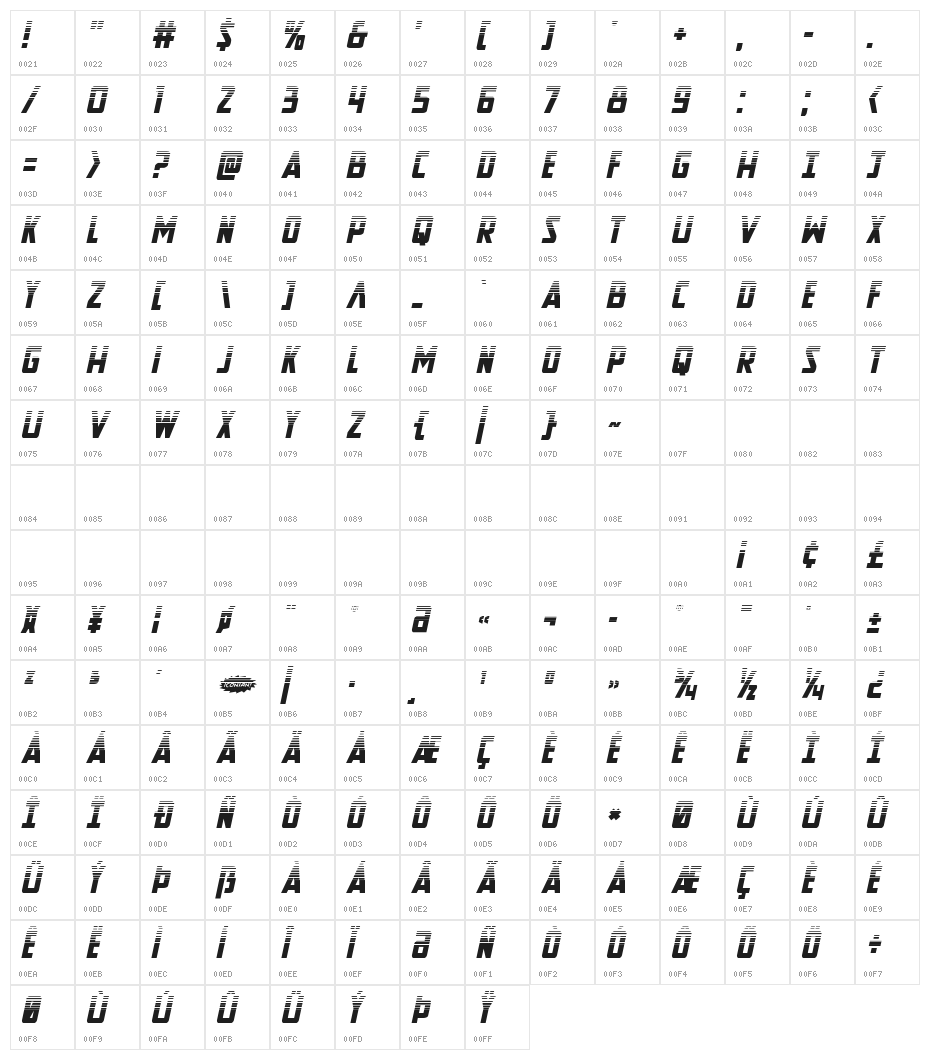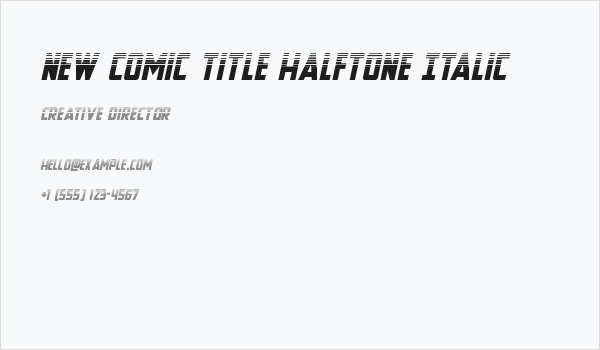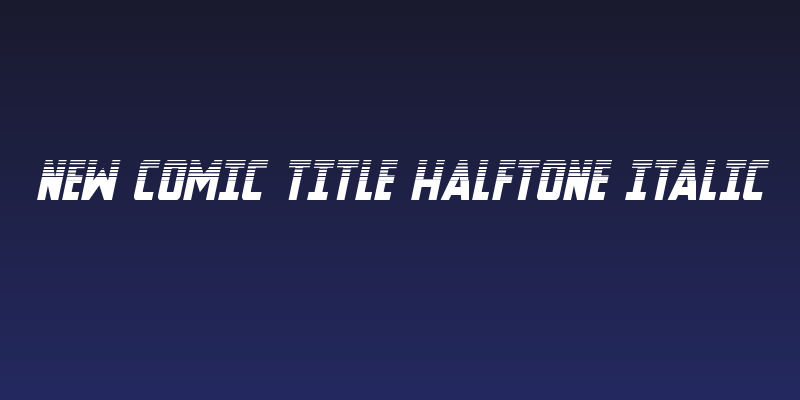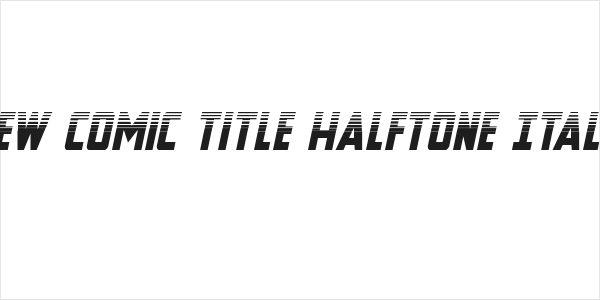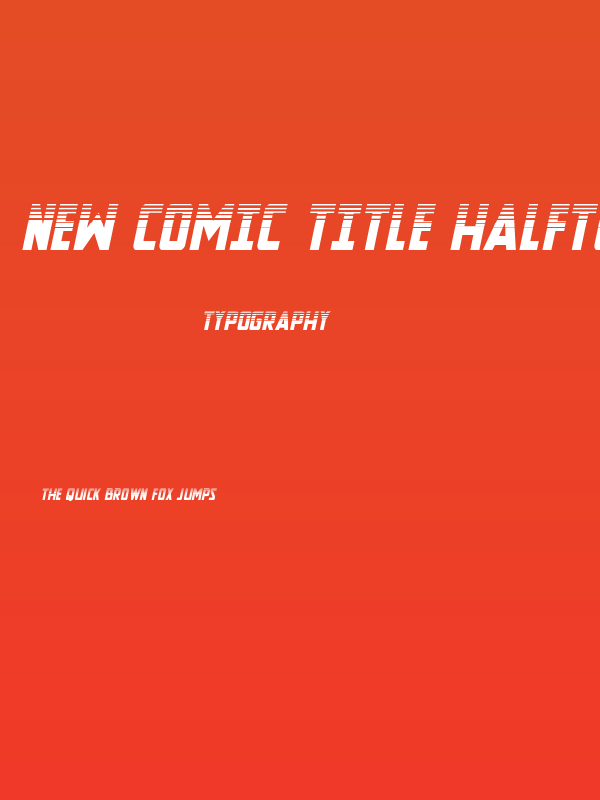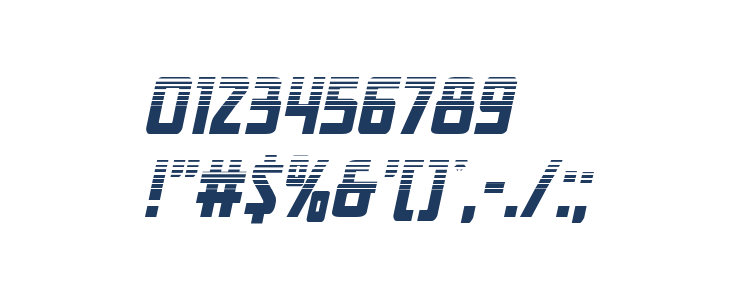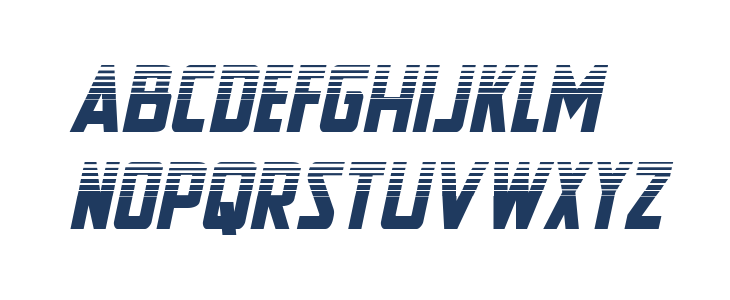
New Comic Title Halftone Italic Font
New Comic Title Halftone Italic Description
This font features a bold, dynamic style with a halftone effect that gives it a unique, comic-inspired appearance. The letters are italicized, adding a sense of motion and energy. The uppercase and lowercase characters maintain a consistent design, with sharp angles and a modern aesthetic. The numbers and special characters are equally bold and stylized, making them stand out. The halftone pattern creates a sense of depth and texture, enhancing the overall visual impact. This font is perfect for projects that require a playful yet strong visual presence.
| Proposed Projects | Ideal for comic book titles, posters, graphic novels, and dynamic branding projects. |